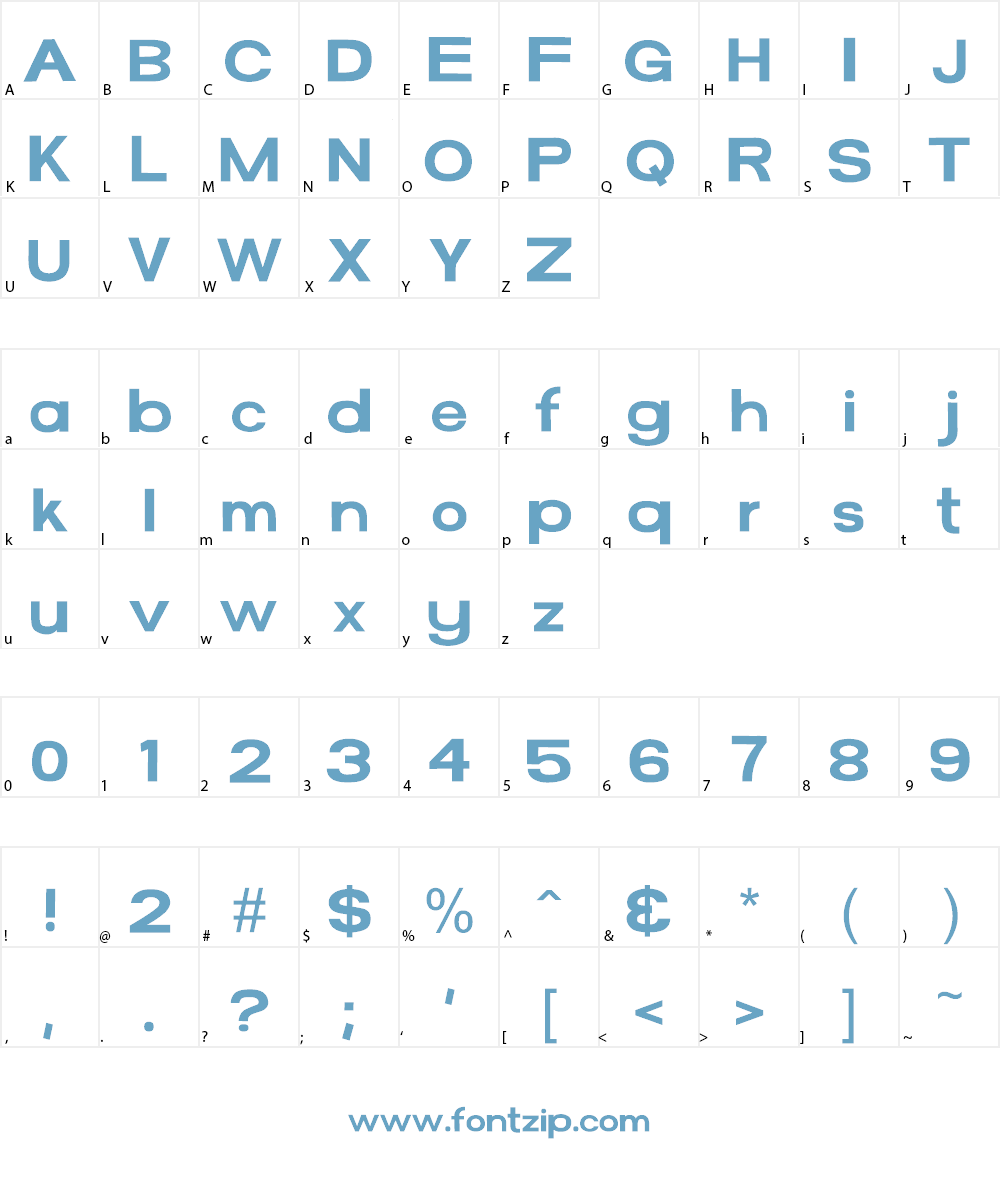
Relating to the Teapigs logo, this is the FunZone Two Font Family! FunZone Two is an improved version of the original FunZone font made two years ago. This FunZone Two family contains 13 fonts.
By the way, I literally don't know what the real font for the Teapigs logo is, so I just decided to recreate the Teapigs logo font.